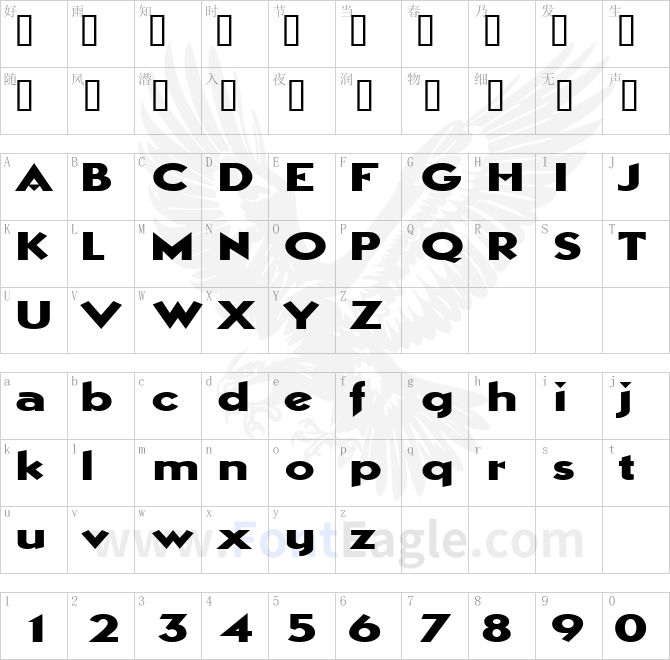
ManhattanExtended is a great font, widely used in graphic design, single-page menu design, poster design and other fields, and is deeply loved by designers.ManhattanExtended download.